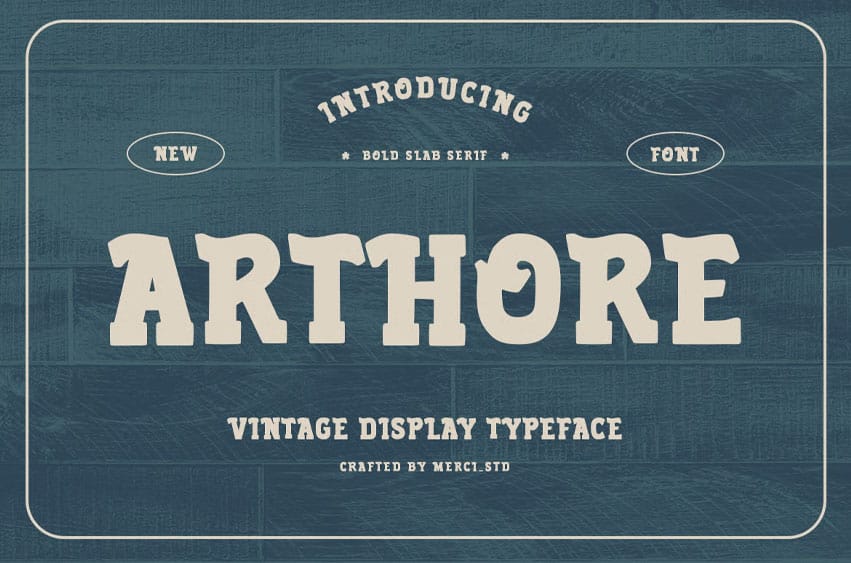
Arthore Font is a bold slab serif display font with vintage character and strong presence. Ideal for retro branding, posters, packaging, and editorial design.
- Uppercase Letters
- Ligature & Alternate Character
- Unique Hand-Drawn Style